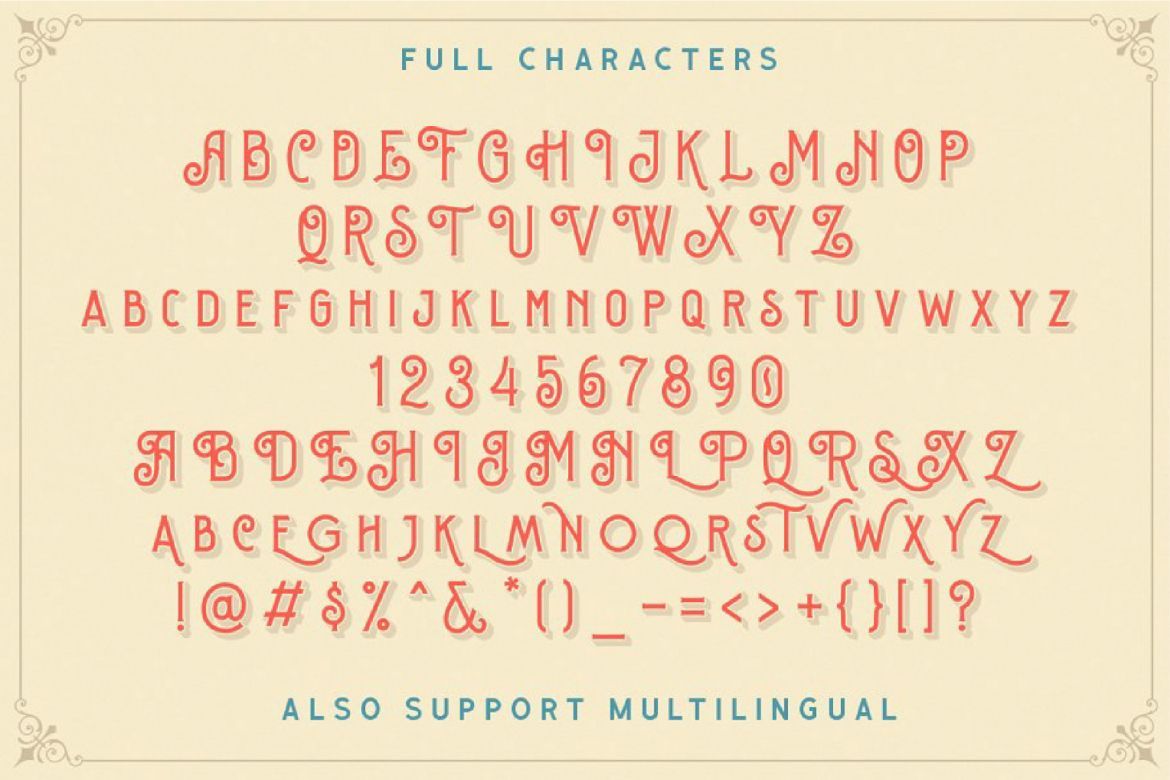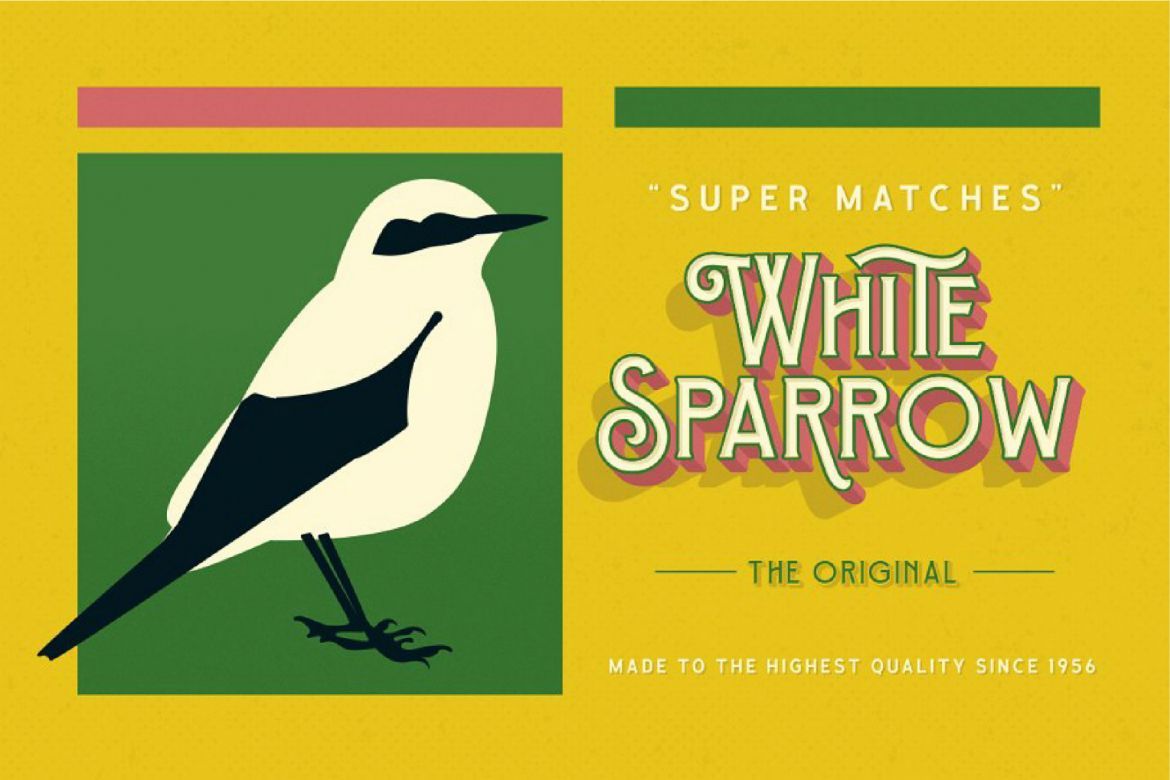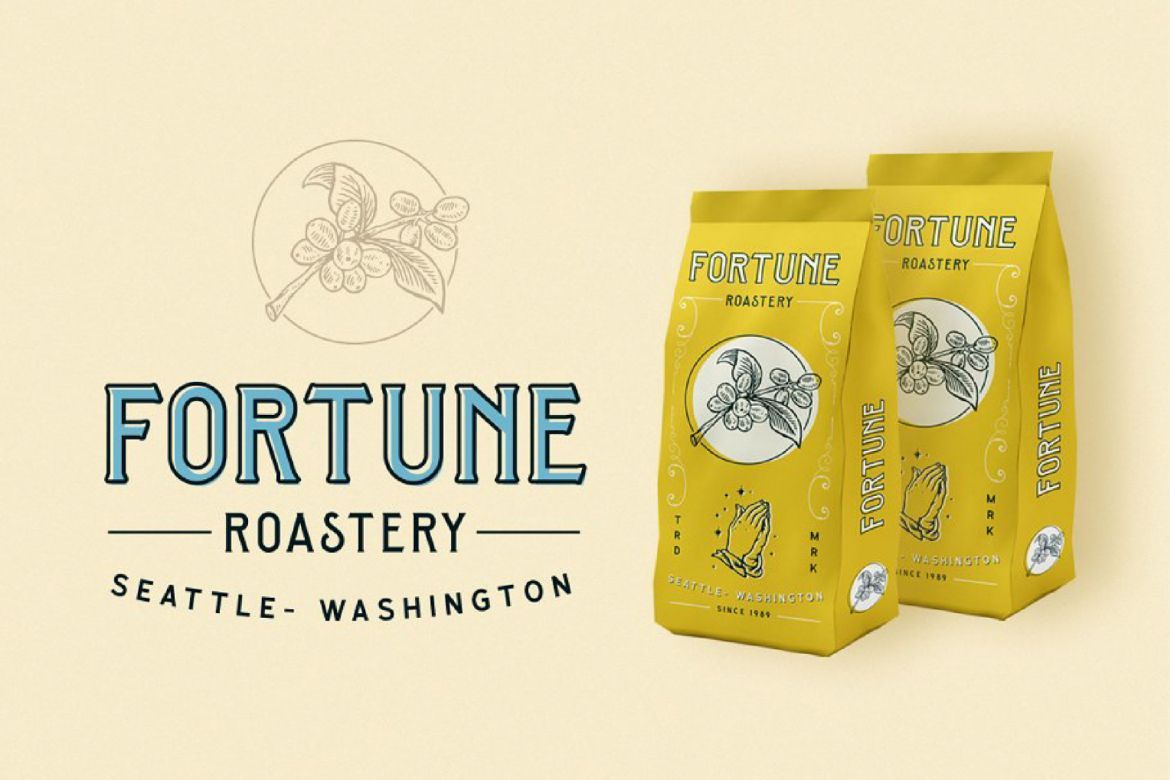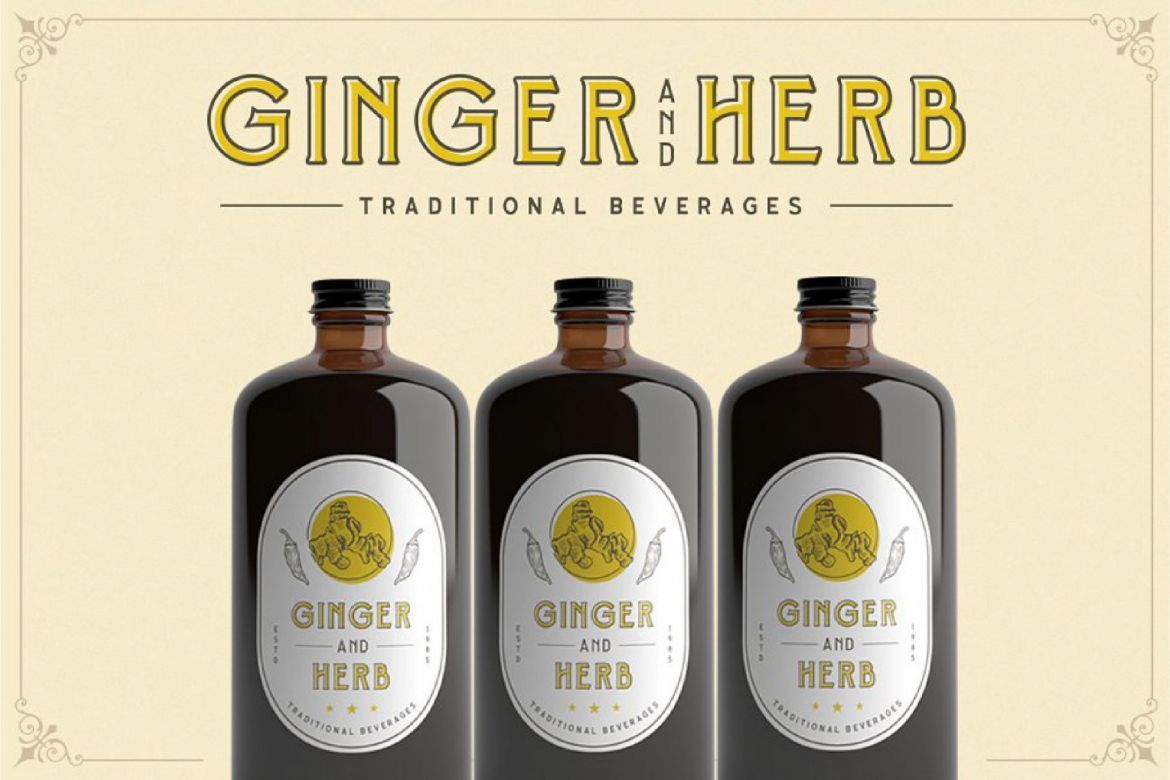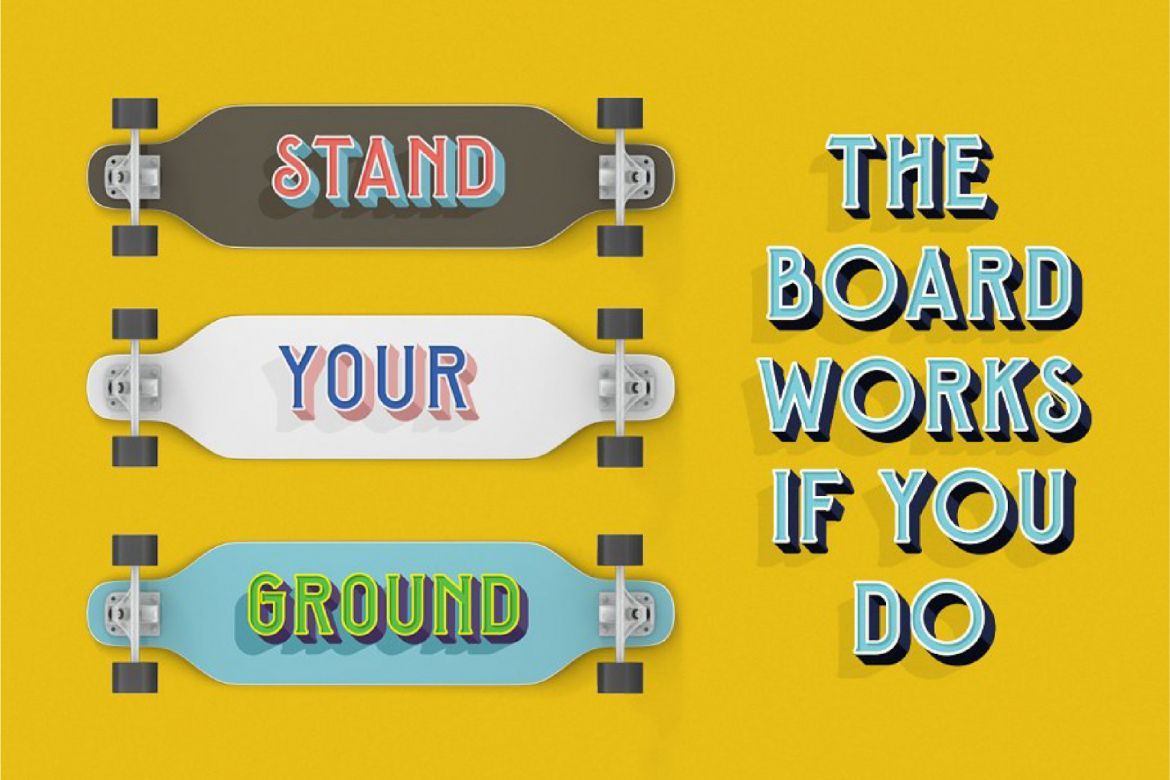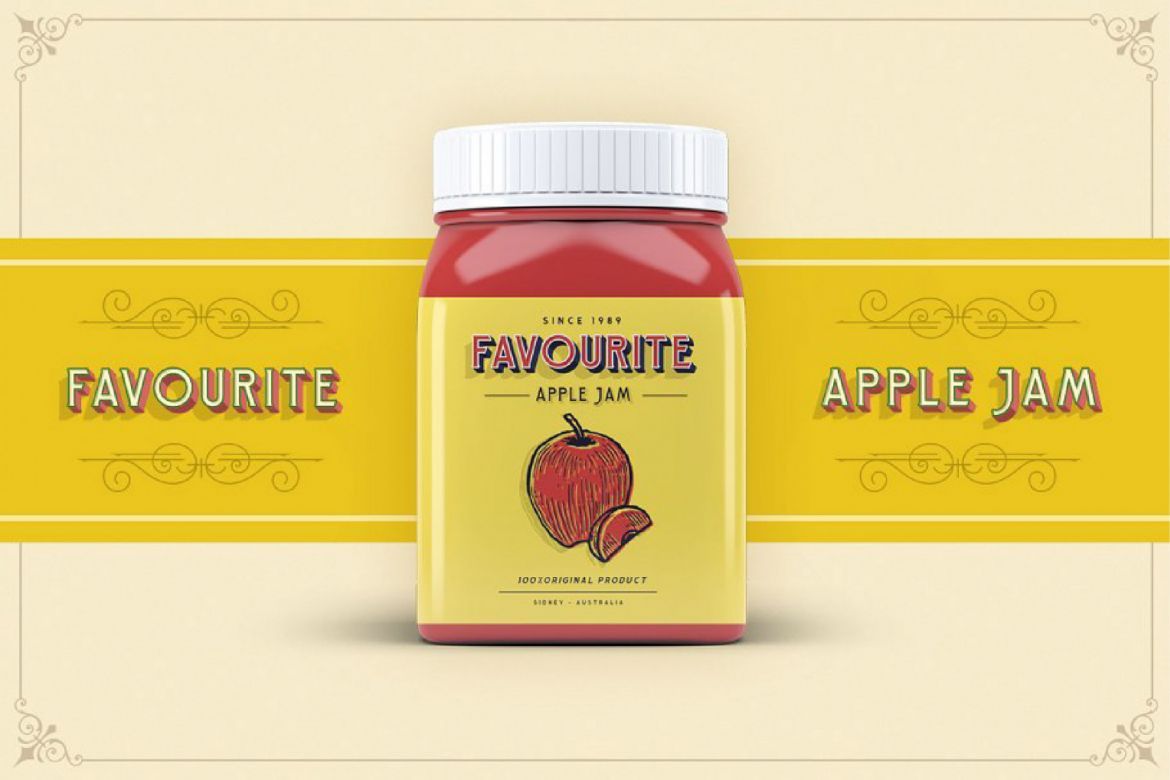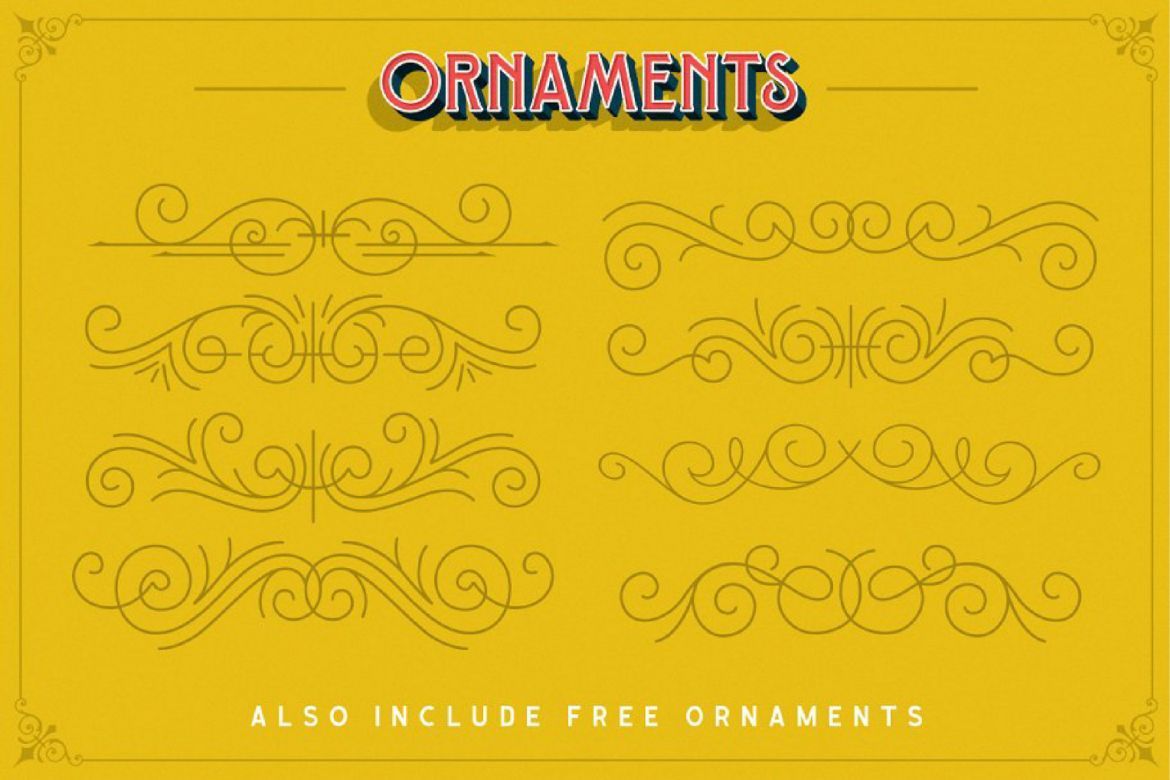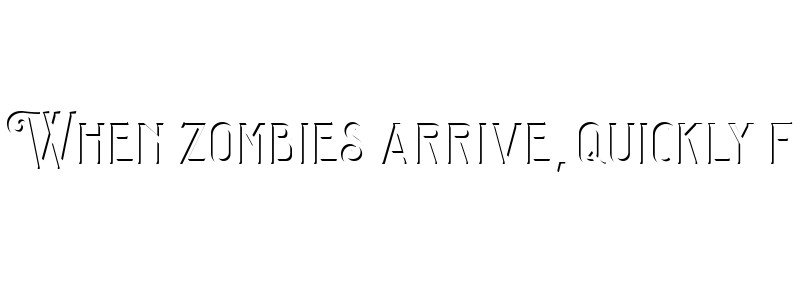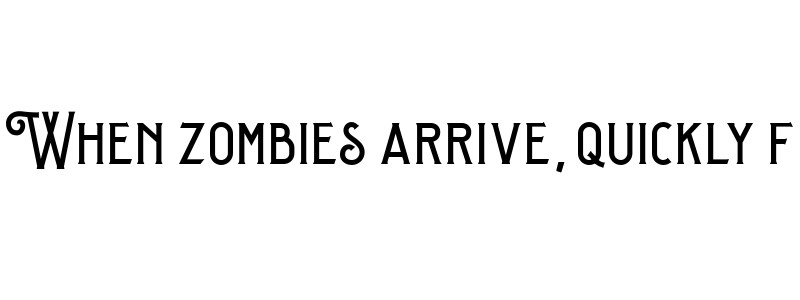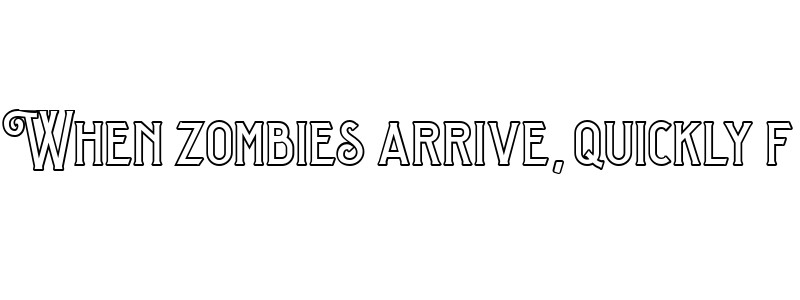
Sequents - Layered Font
Sequents - Layered Font (+ORNAMENT)
• contains many alternatives create your 3d type
• this font is suitable for vintage posters, type 3d, or retro includes numbers and punctuation, also supports multi languages.